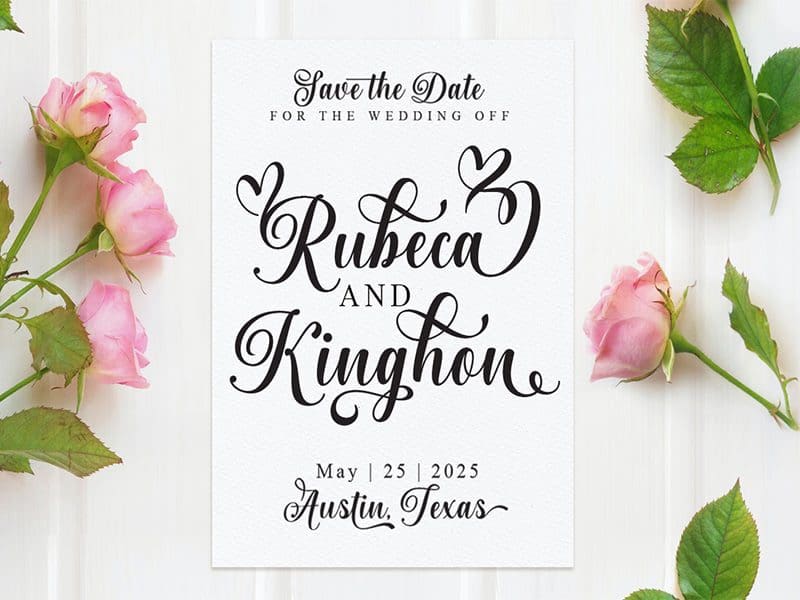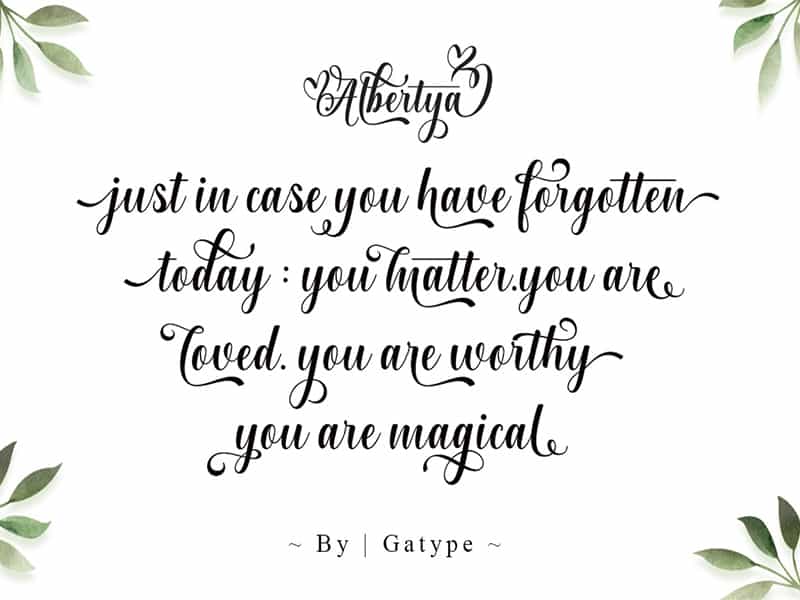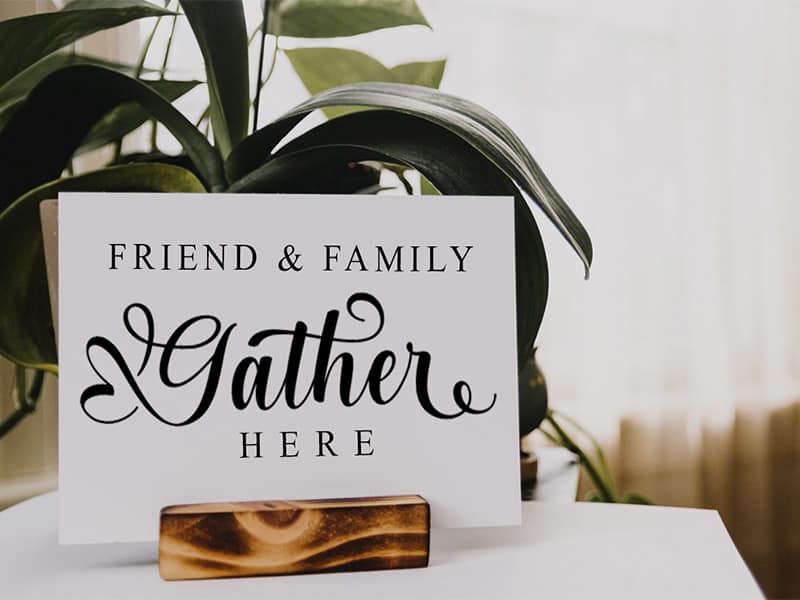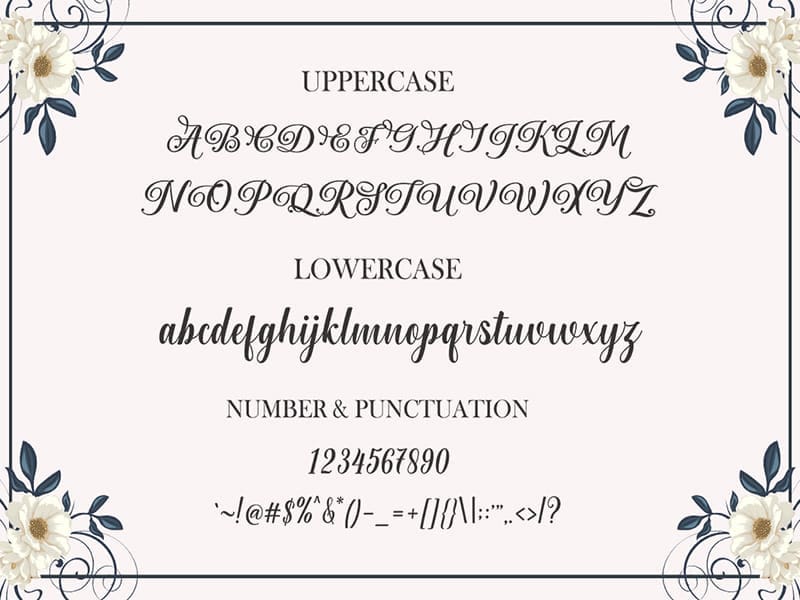
Albertya Font
Albertya is a modern calligraphy font. This font is casual and pretty with a stroke. Can be used for various purposes. such as logos, product packaging, wedding invitations, branding, headlines, signage, labels, signatures, book covers, posters, quotes and others.